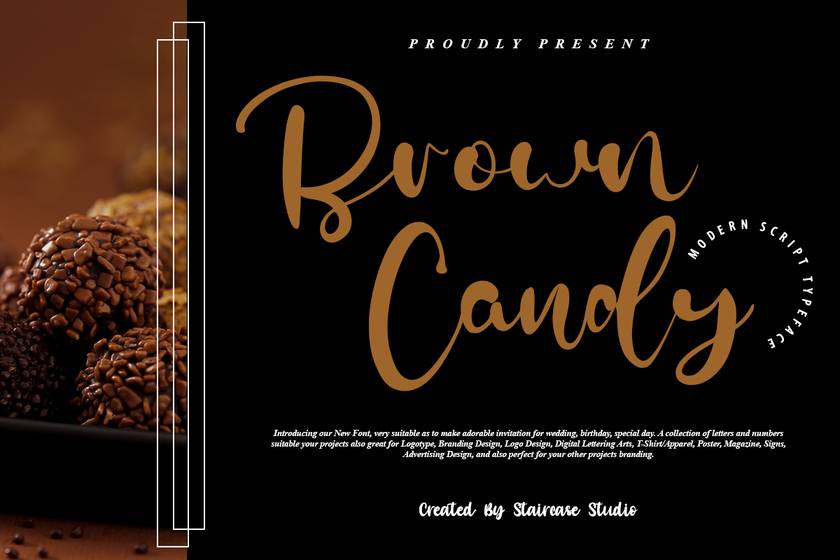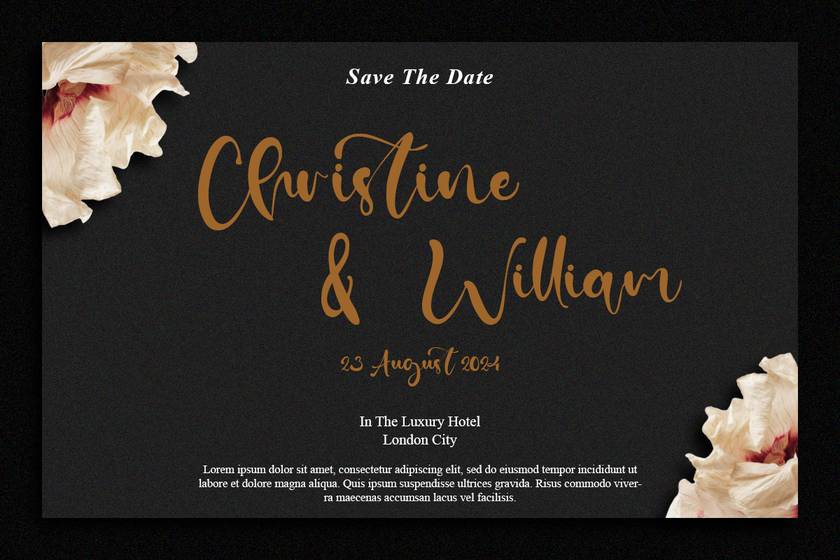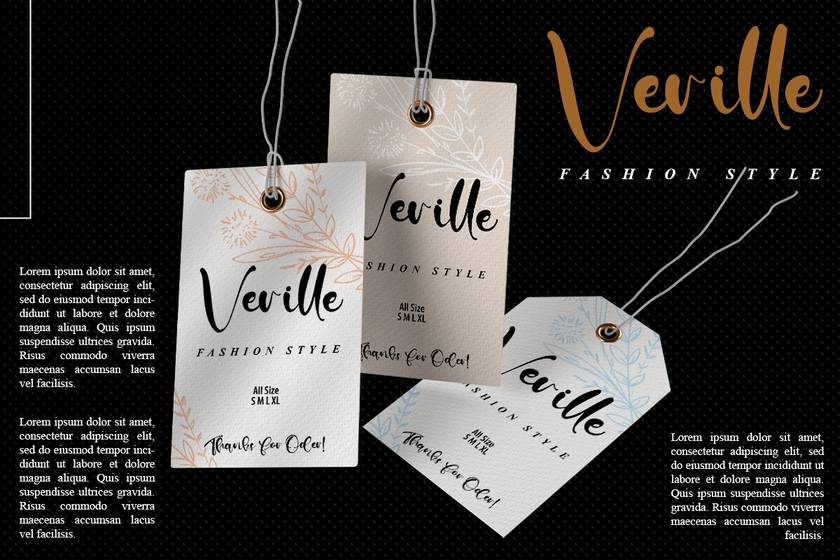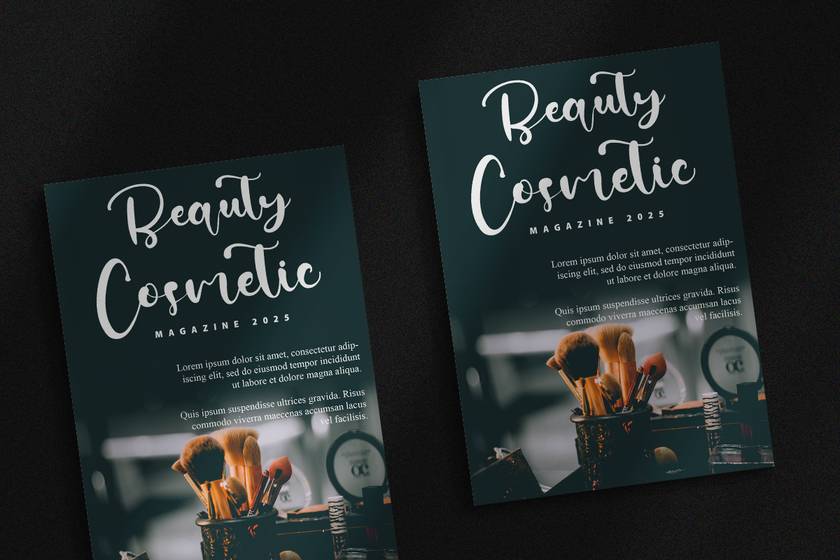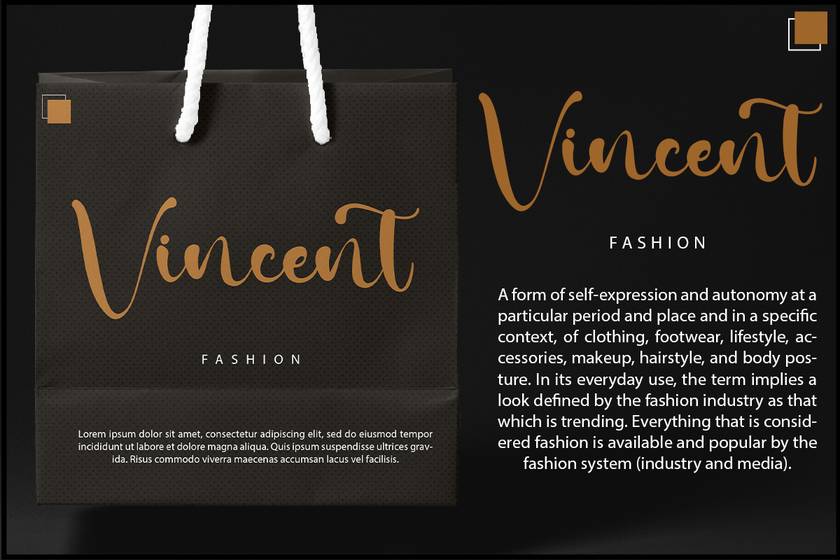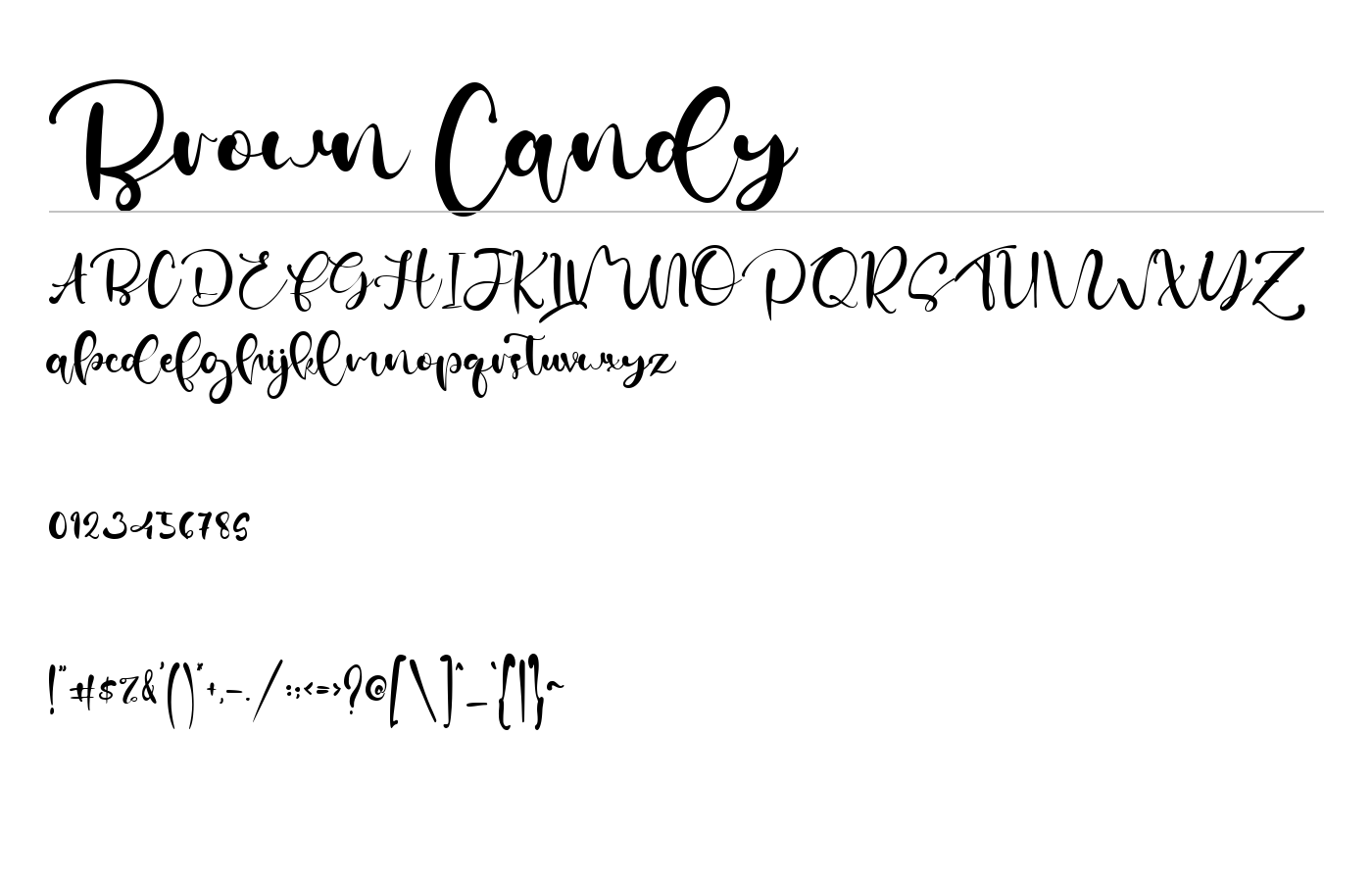
Brown Candy is a playful, handwritten script font featuring smooth, flowing strokes with varied thickness that bring a lively and personal touch. Its mix of elegant uppercase and bold, rounded lowercase letters make it perfect for creative projects, invitations, branding, and any design seeking a friendly yet stylish vibe. This font shines in contexts where a warm, approachable, and artistic character is desired.
Brown Candy Font
About Brown Candy Font
| Font family | Brown Candy Font |
| Designer | Staircase Studio |